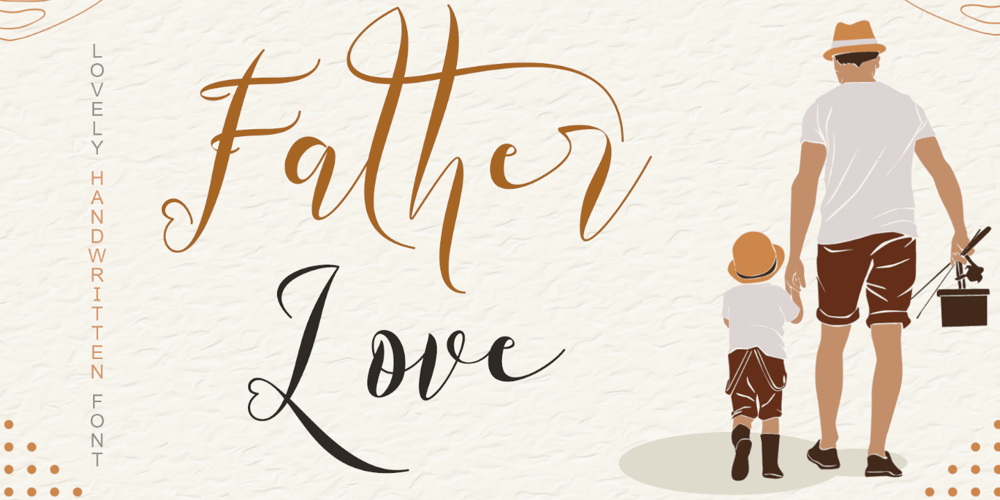
Father Love
Father Love font
Father Love Font Family was designed by Isroni Yoga Prasetya and published by Yoga Letter. Father Love contains 1 styles and family package options. “Father Love” is a beautiful and unique handwritten font. This font is equipped with uppercase, lowercase, numerals, punctuation, ligatures, and multilingual support. This font is perfect for Christmas, Father’s Day, Memorial Day, the 4th of July, teacher appreciation, graduation, and others.